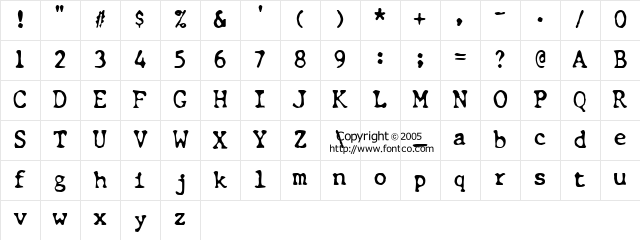
Chunk Type Regular Free Font
Chunk Type Regular
Design Context for Chunk Type
Chunk Type is a composed and adaptable typeface that performs quietly and consistently across a wide range of design contexts.